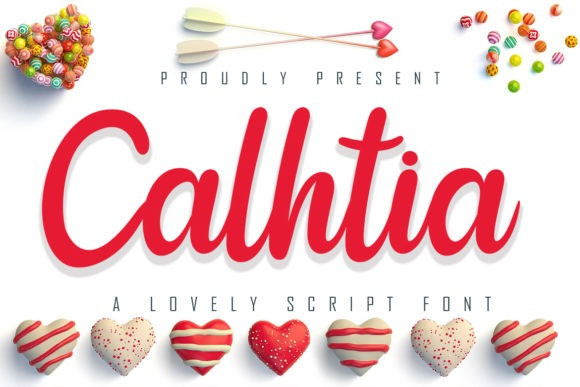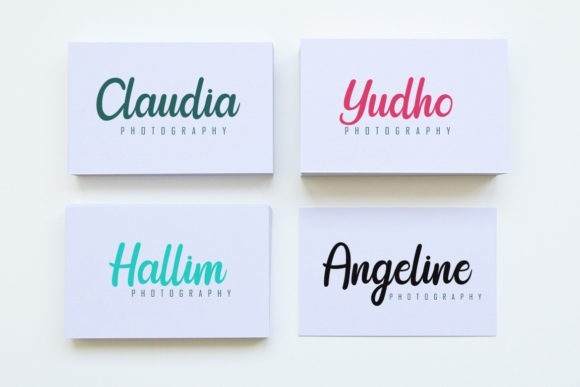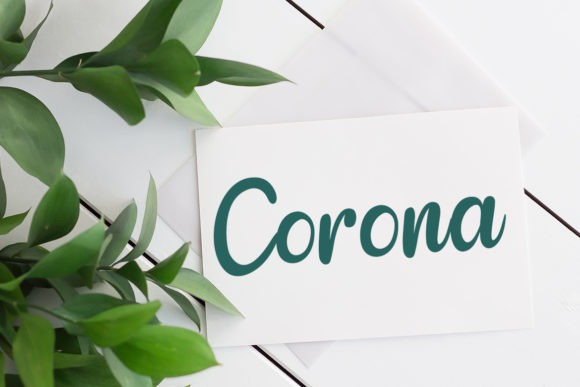
Calhtia Script Font
Calhtia Script Font by skiiller studio 15,948 downloads
Calhtia Script Font
Calhtia feels equally charming and elegant. This gorgeous handwritten font features a charming style and a friendly feel. Whether you’re looking for fonts for Instagram or calligraphy scripts for DIY projects, Calhtia will turn any creative idea into a true piece of art!